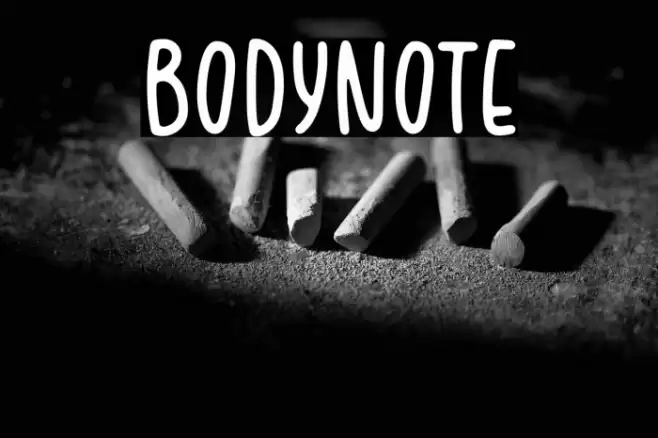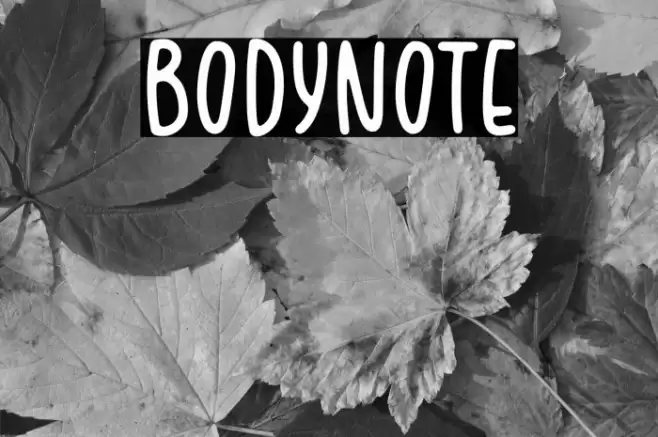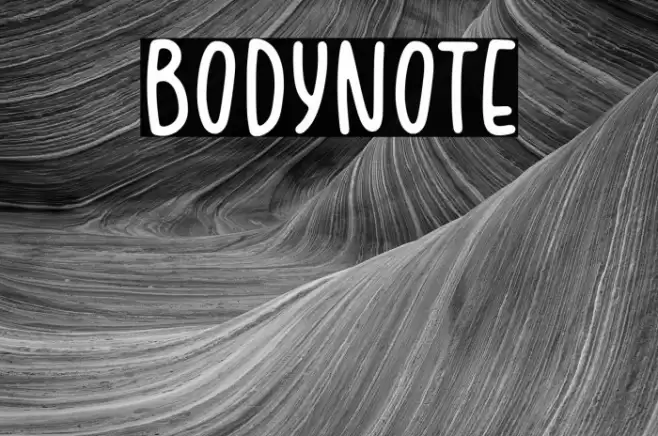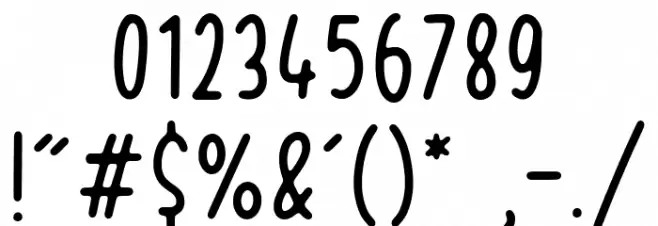
BODYNOTE Font
BODYNOTE Description
This font features a playful and rounded style with a handwritten appearance. The characters are uniformly bold, with smooth curves and a consistent stroke width that gives it a friendly and approachable look. The uppercase and lowercase letters maintain a cohesive design, while the numerals and special characters complement the overall aesthetic. The font's informal nature makes it ideal for projects that require a personal touch or a casual vibe. Its readability and distinctiveness make it suitable for various creative applications.
A playful, rounded handwritten font with a bold and friendly style from Uncategorized fonts.
- Proposed Projects: Ideal for children's books, greeting cards, playful branding, social media graphics, and informal invitations.
- Overall Style: Casual
- Use Case: Headlines, Logos, Informal Text